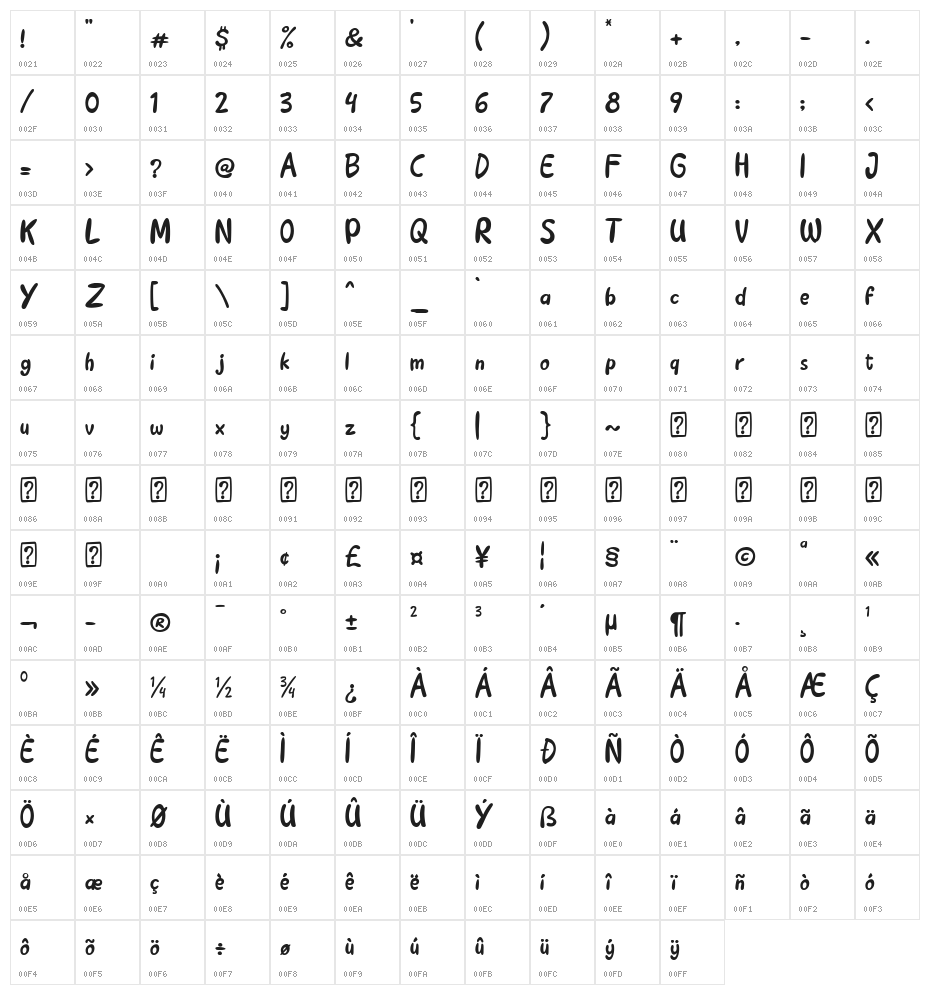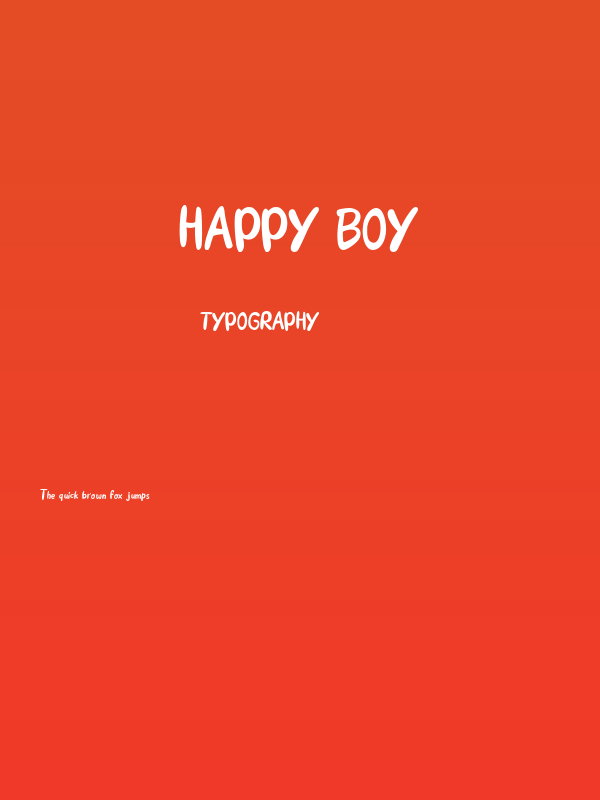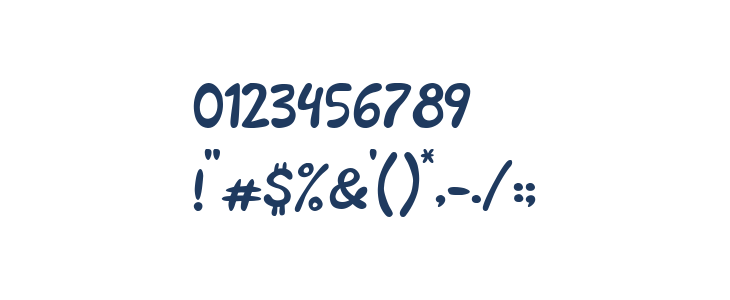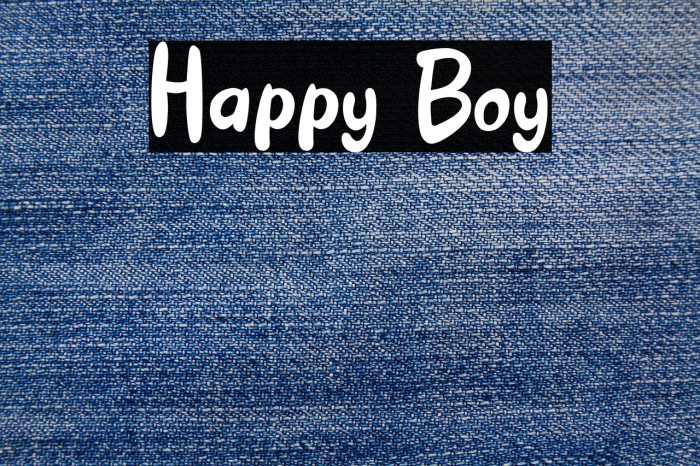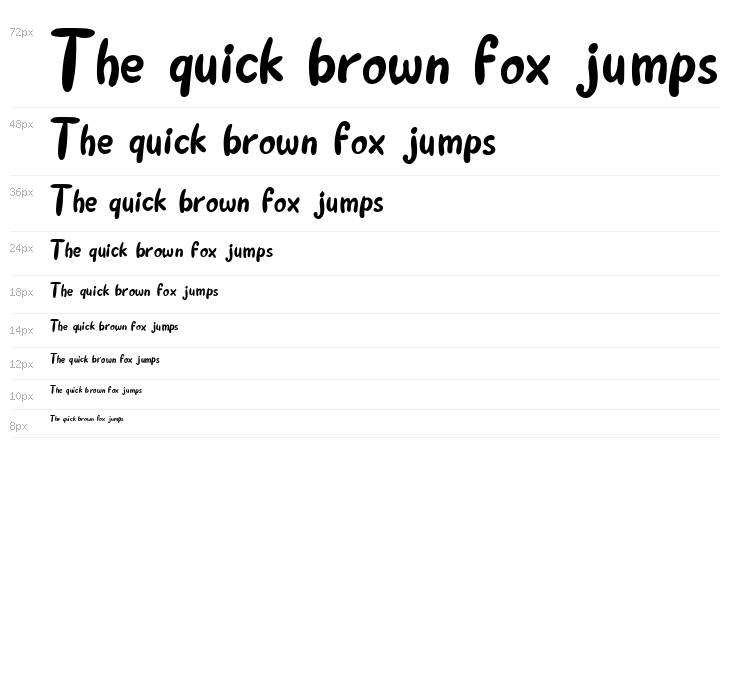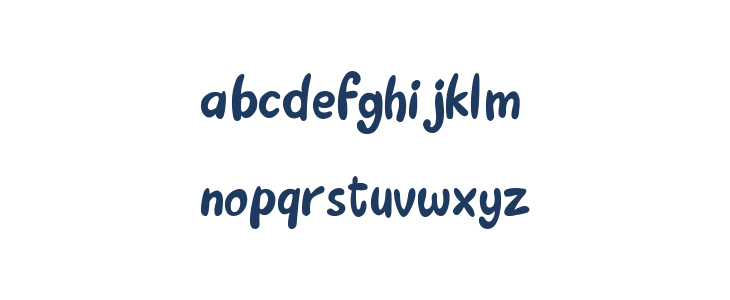
Happy Boy Font
Happy Boy Description
This playful and rounded font exudes a cheerful and friendly vibe, making it perfect for projects that require a touch of whimsy. The characters are bold and slightly irregular, giving them a hand-drawn appearance that adds to their charm. The uppercase and lowercase letters maintain a consistent style, with smooth curves and a slightly exaggerated width. The numbers and special characters follow the same playful aesthetic, ensuring a cohesive look across all text elements. This font is ideal for children's books, playful branding, and any design that seeks to convey joy and approachability.
| Width | Expanded |
| Overall Style | Playful |
| Use Case | Headlines, Logos, Casual Text |
| Proposed Projects | Children's books, playful branding, greeting cards, and casual invitations. |